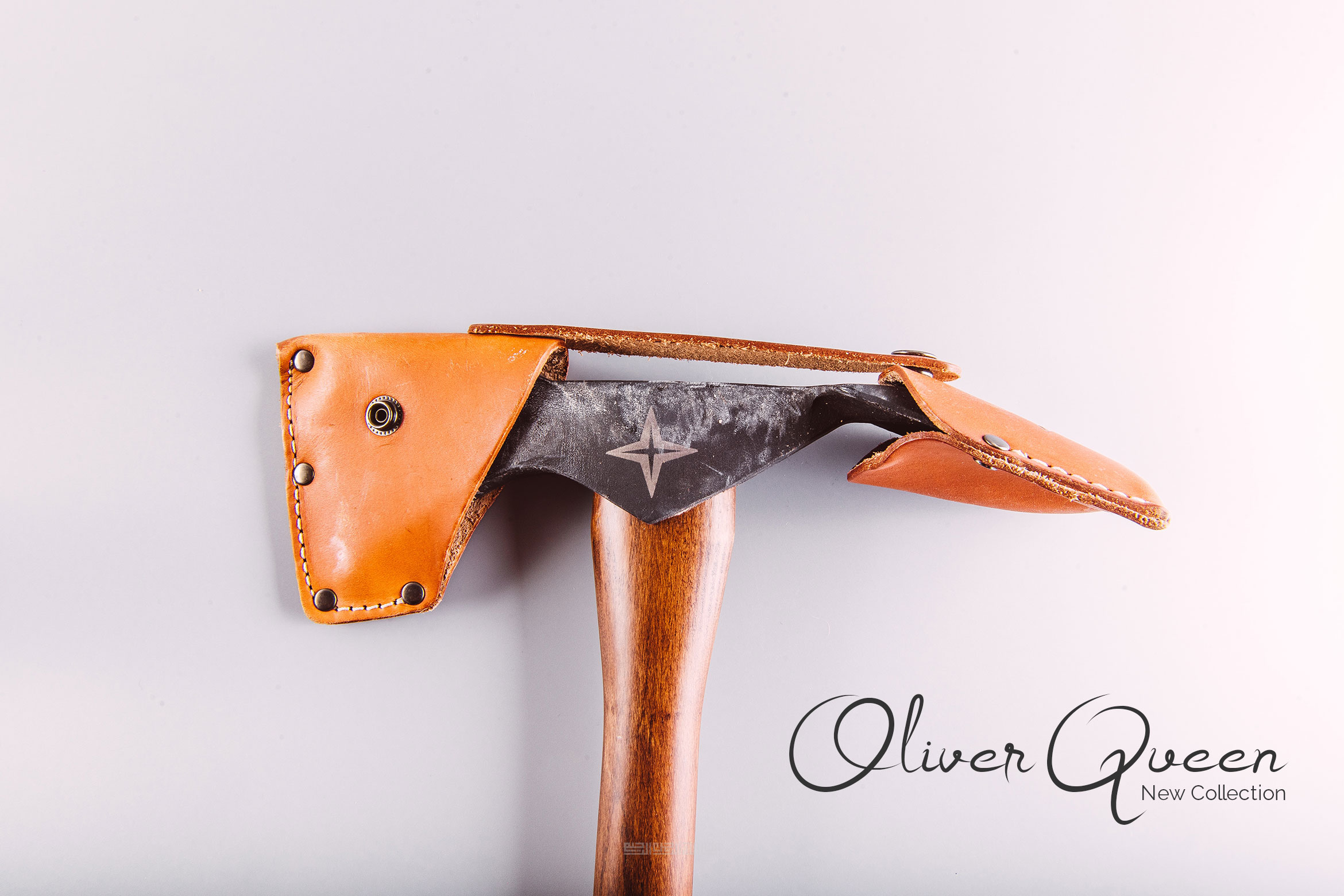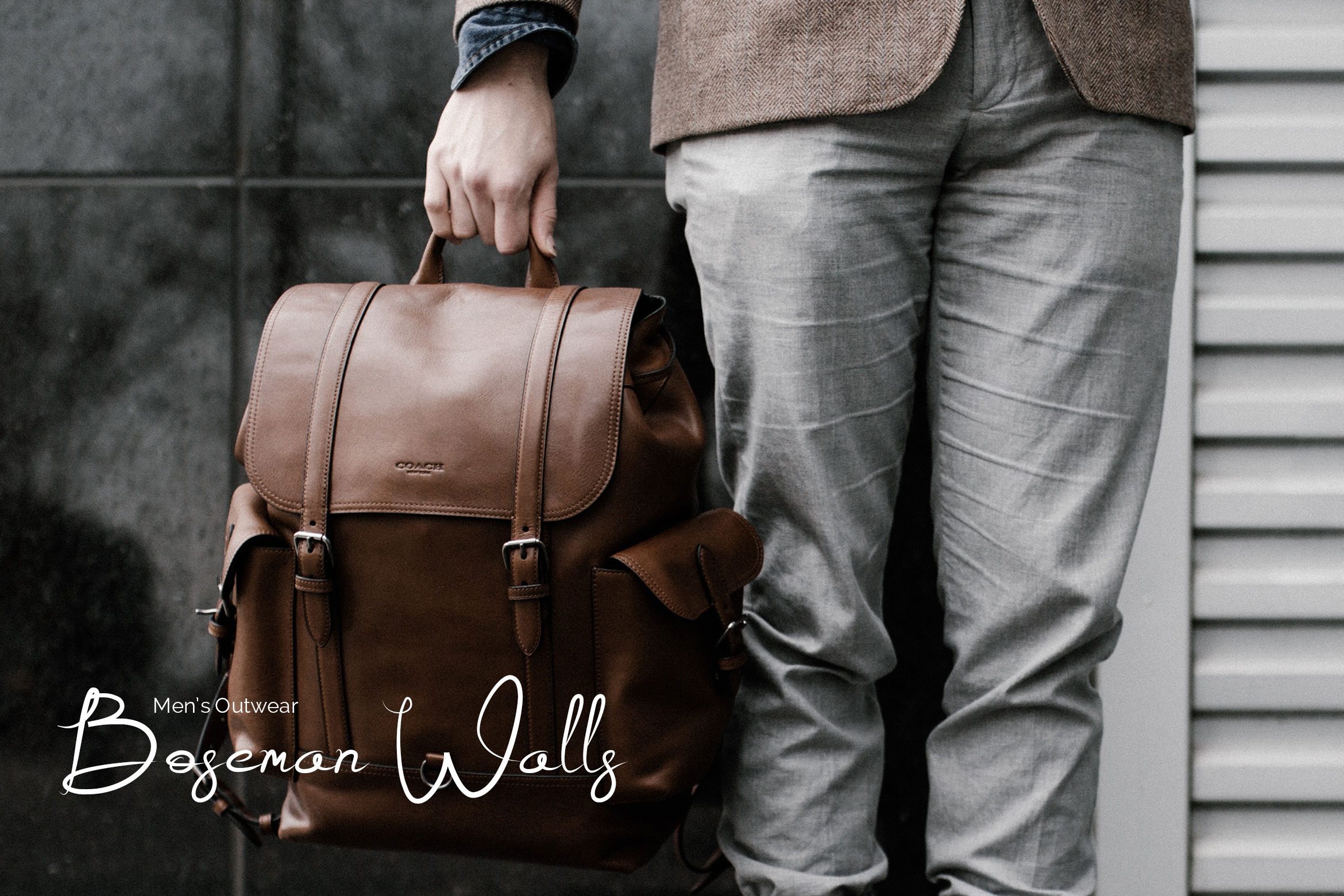
Alestraza Font
About Alestraza Font
Alestraza is a simple and classy handwritten font, this font looks elegant, classy, readable, stylish, catchy and easy to use.
Alestraza Font is the best choice for your professional design projects, including : signature, watermark on photography, quotes, album cover, business card, logo, branding, magazines, social media, advertisements, product designs, and many other design project.